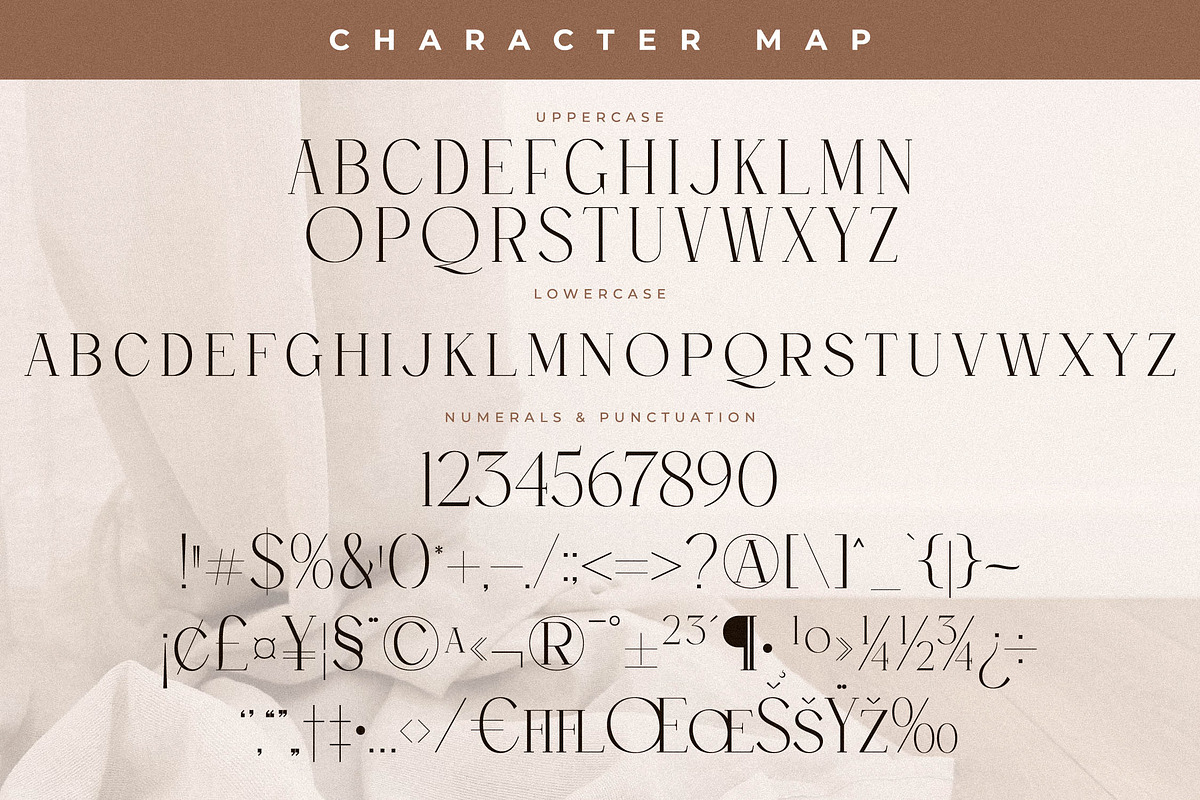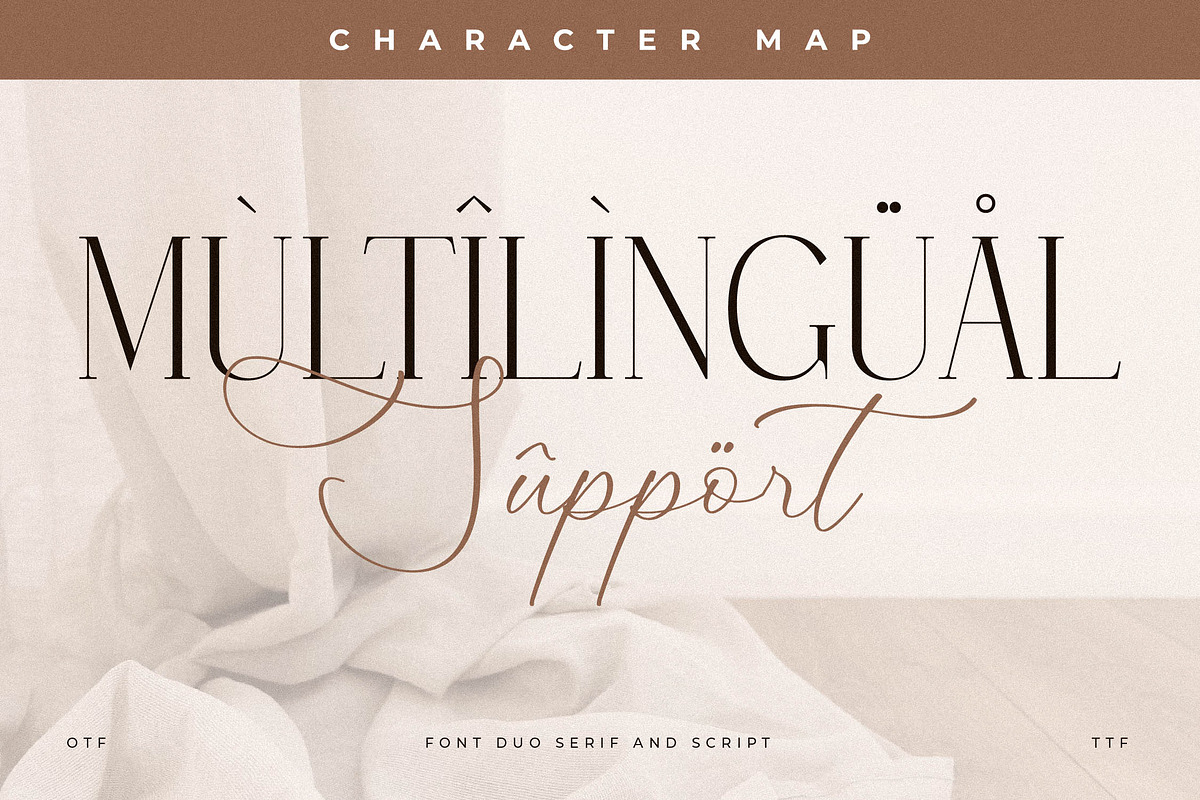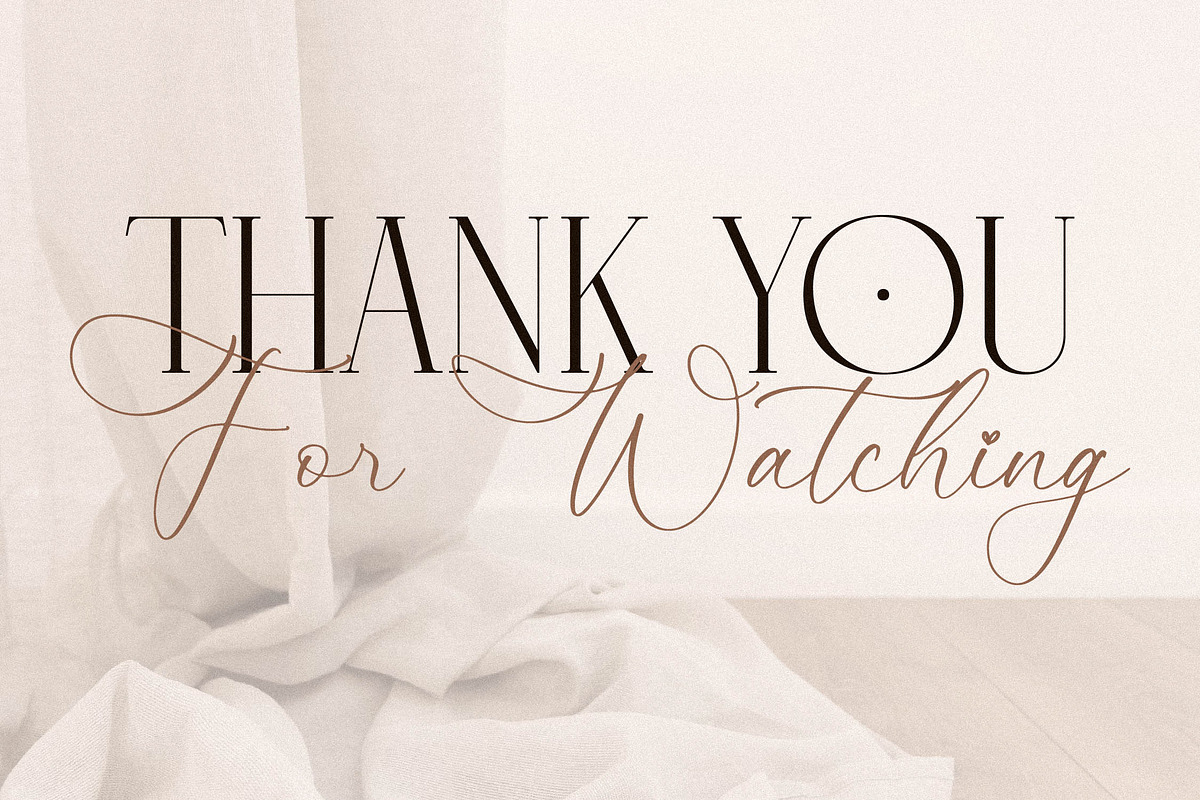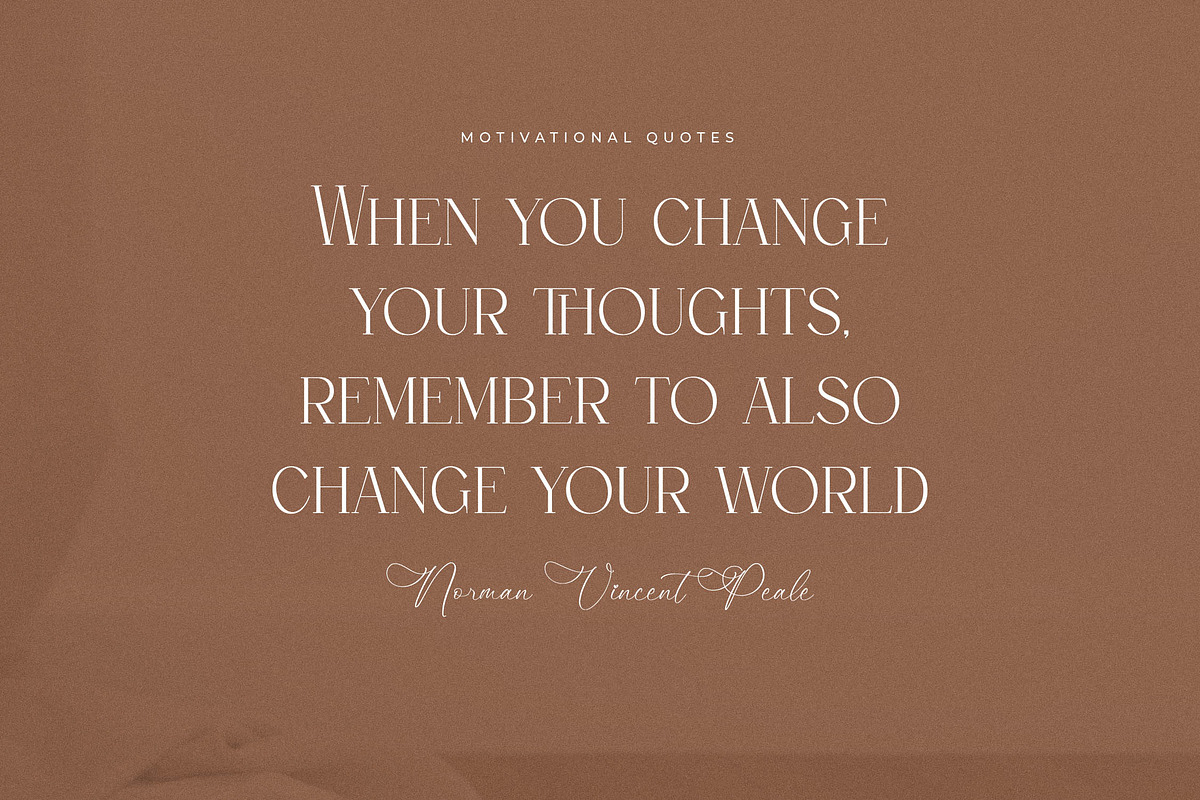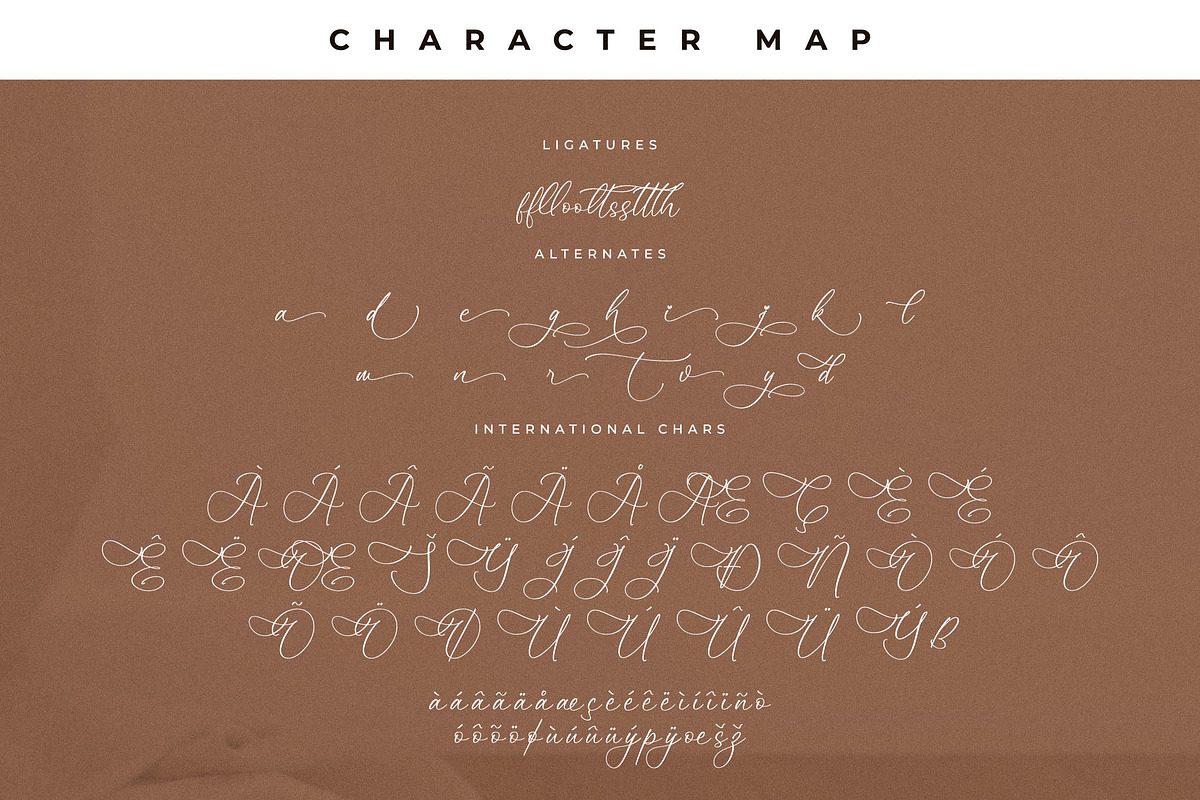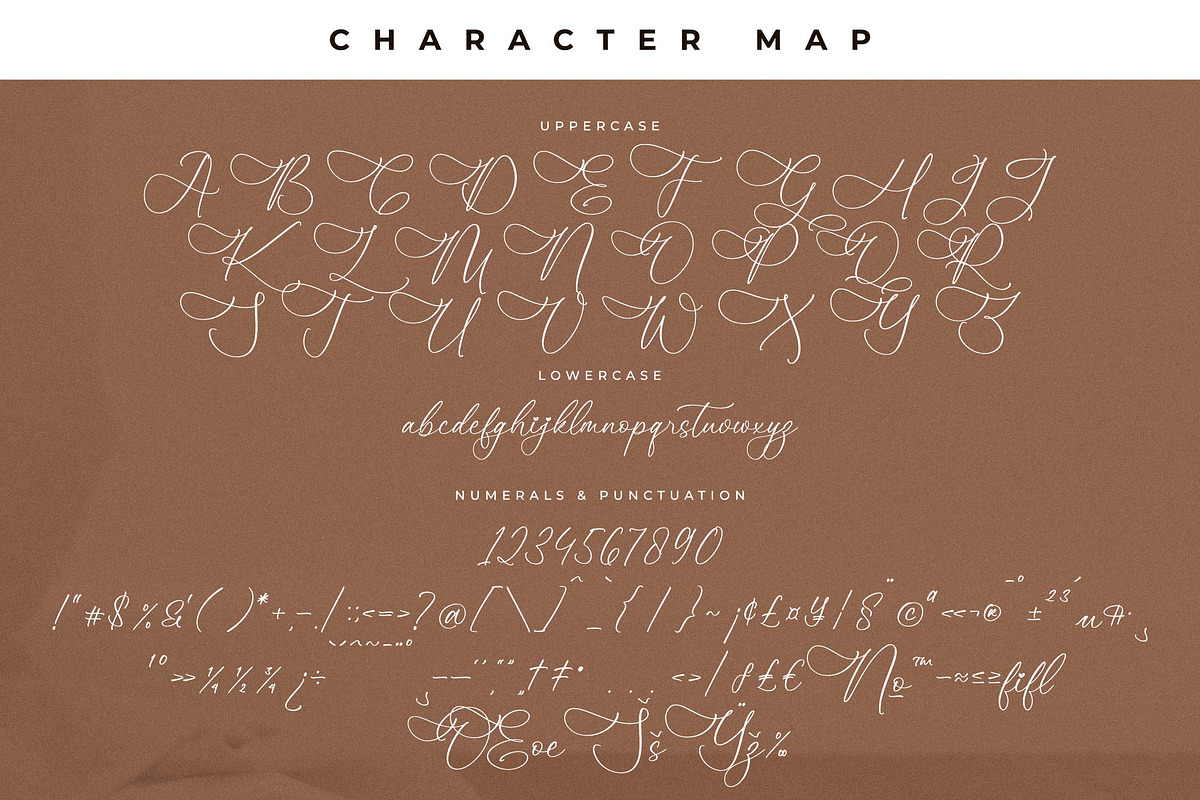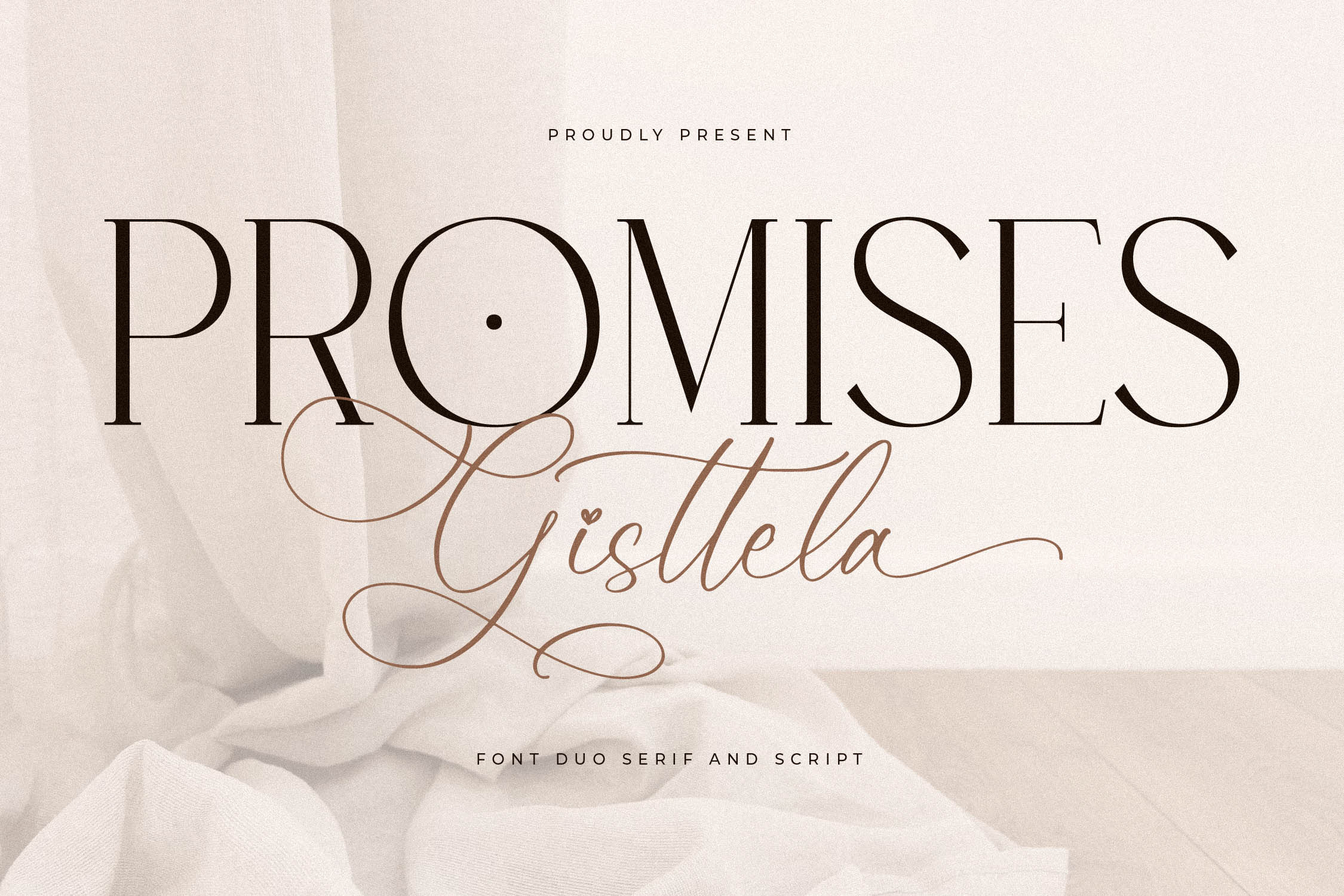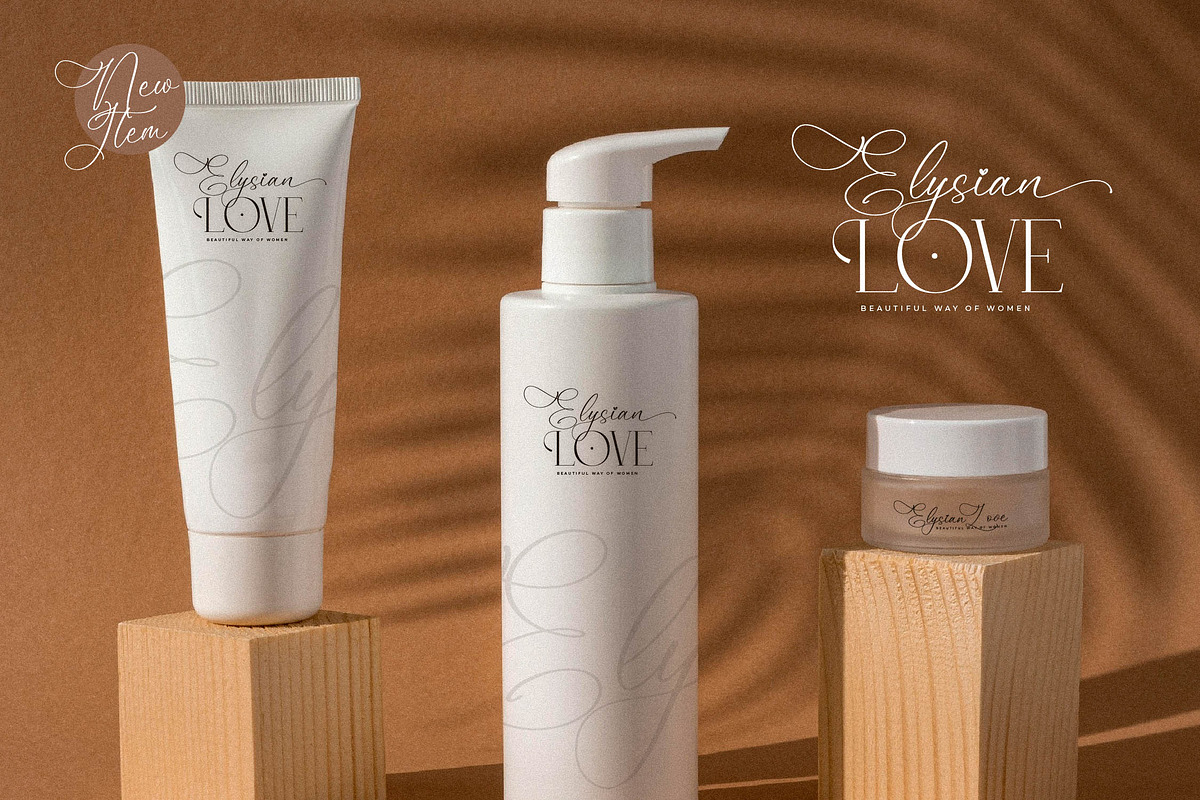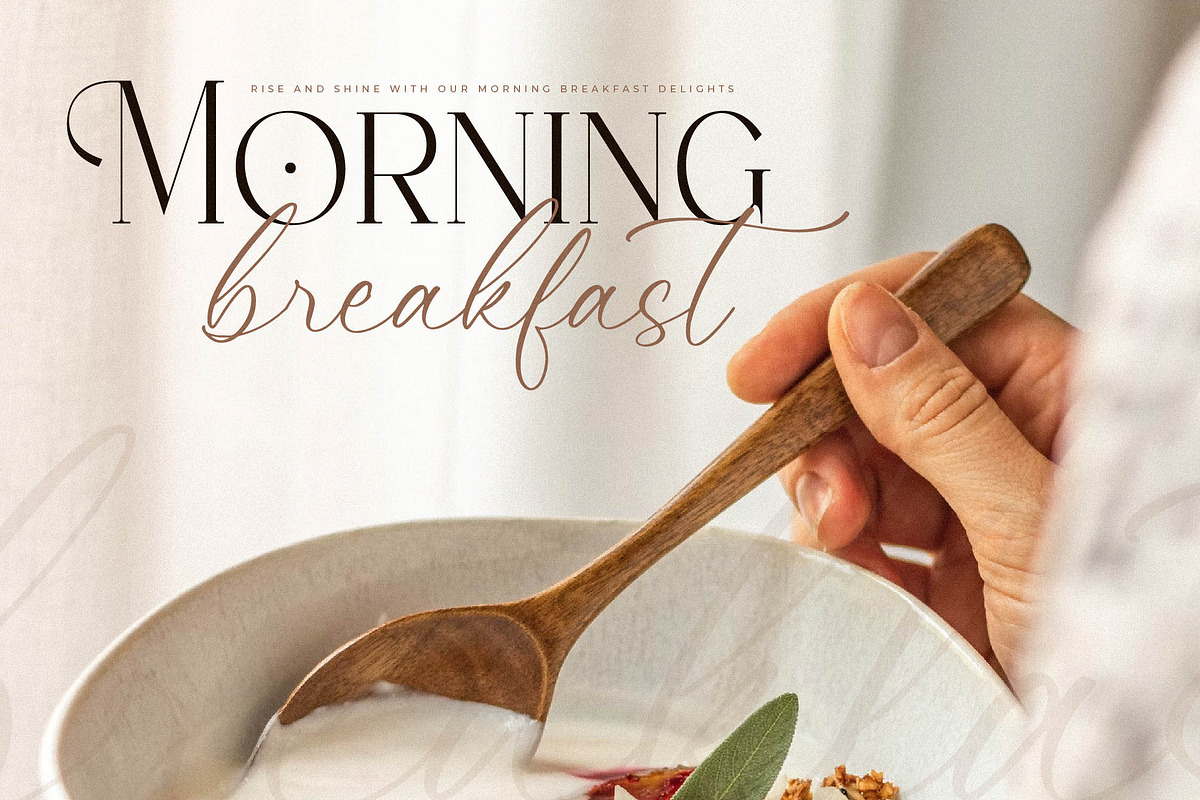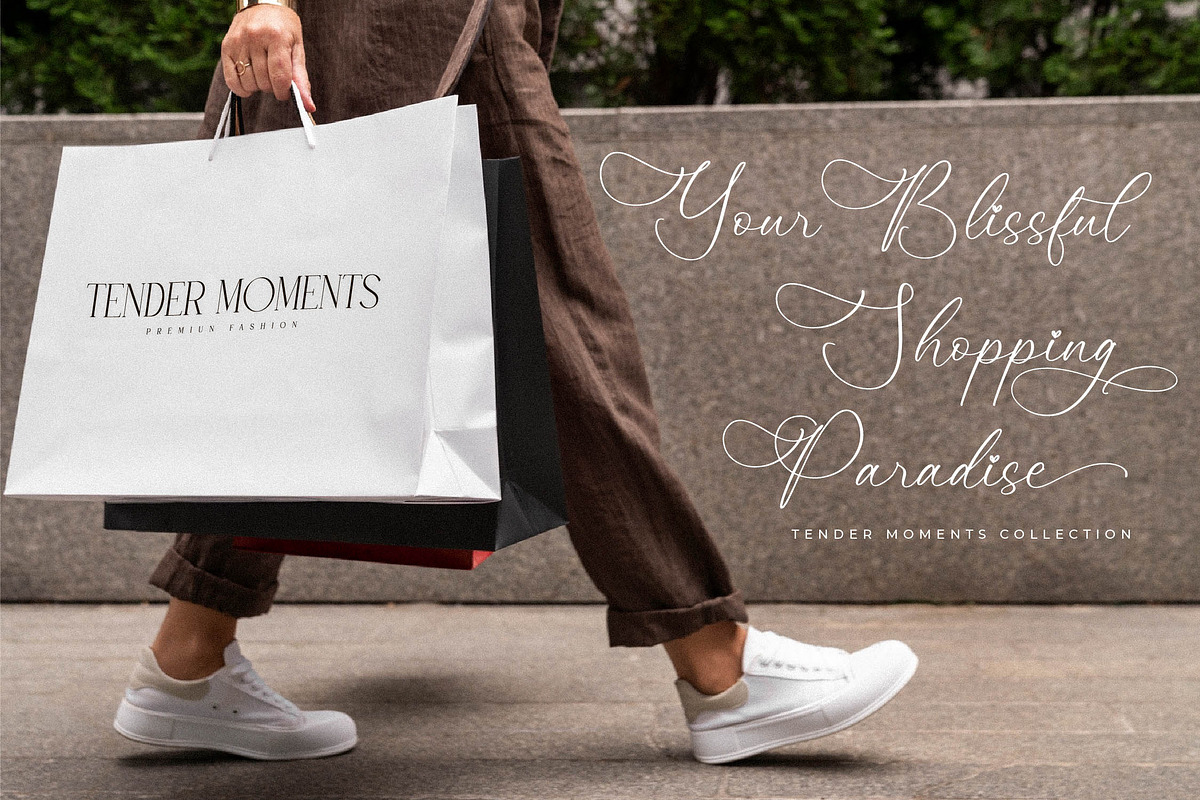
Promises Gisttela Font Duo
Proudly present Promises Gisttela Font Duo , created by Storytype, A serif and script typeface that has own unique style & modern look. This typeface is perfect for an elegant & luxury logo, book or movie title design, fashion brand, magazine, clothes, lettering, quotes, and so much more.